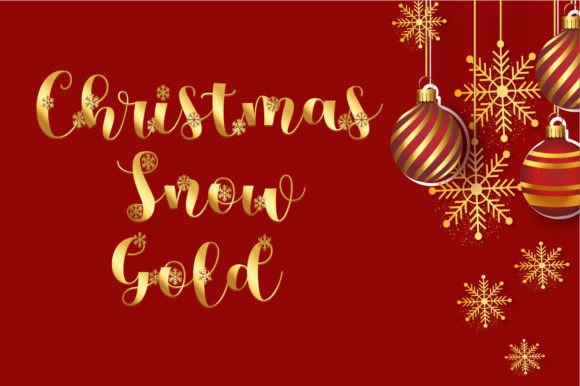
Introducing Christmas Snow Gold Font, a captivating and elegant color font designed specifically for the festive season! Created by the renowned NN-Font Design, this stunning font family is the perfect choice for all your Christmas stocking design needs.
With its sophisticated and golden letters, Christmas Snow Gold Font adds a touch of glamour and class to any project. Whether you're designing holiday greeting cards, personalized Christmas stockings, or even festive party invitations, this font is guaranteed to make your creations stand out from the crowd.
Embrace the spirit of the season with this eye-catching font that captures the essence of Christmas. Its intricate details and vibrant colors are sure to evoke joy and excitement in anyone who lays eyes on it. From whimsical snowflakes to charming ornaments, every character in this font family is a work of art.
But Christmas Snow Gold Font is not just visually appealing – it's also incredibly versatile. Its extensive range of characters and symbols allows you to unleash your creativity and bring your ideas to life. Let your imagination run wild as you mix and match different elements to create truly unique and personalized designs.
Whether you're a professional designer or a DIY enthusiast, Christmas Snow Gold Font is the ultimate tool to make your Christmas-themed projects shine. It's easy to use and compatible with various design software, ensuring a seamless experience for all users.
Get ready to dazzle your audience with the magic of Christmas Snow Gold Font. Enhance your creations, inspire others, and make this holiday season truly unforgettable.